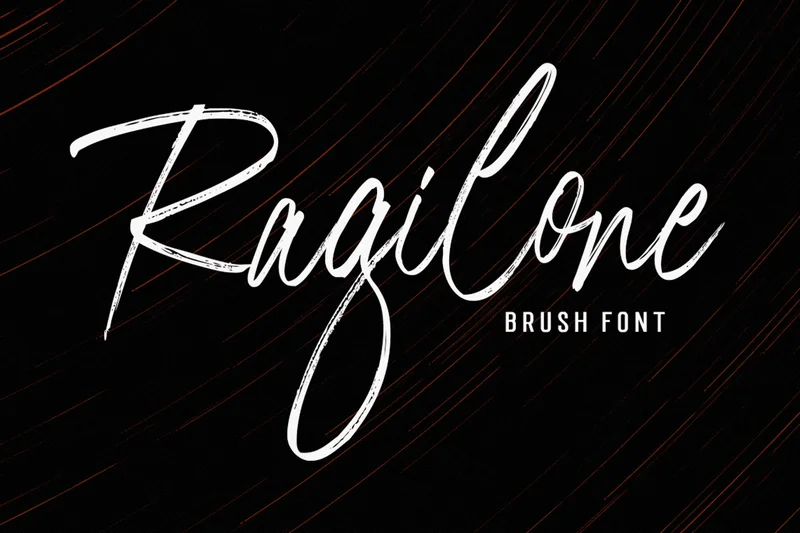
Ragilone Brush
Ragilone Brush is a textured brush font with a contemporary design approach. It’s handcrafted in a natural, irregular baseline, complemented by alternates and ligatures. It’s suitable for use in title designs, such as invitations, book titles, stationery designs, quotes, branding, logos, greeting cards, packaging designs, posters, and more. Ragilone Brush includes a full set of uppercase and lowercase letters, as well as multilingual support, numbers, and punctuation. File Includes OTF & TTF Thank You.